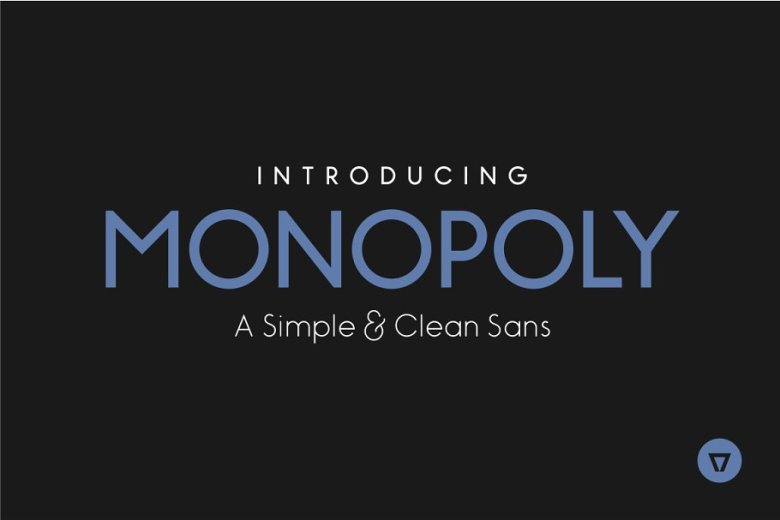
Monopoly Font
Monopoly Font is perfect for board game designs, retro gaming graphics, vintage-inspired branding, nostalgic poster art, property investment marketing, real estate logos, classic entertainment projects, family game night invitations, educational materials, and playful designs that evoke the timeless charm of classic American board games and family entertainment.
This font is exciting because it captures the iconic styling and nostalgic appeal of the world's most famous property trading board game, instantly triggering warm memories and emotional connections with audiences across generations. The distinctive letterforms combine classic elegance with playful personality, making it ideal for projects that want to evoke trust, tradition, and family-friendly fun.
The Monopoly Font family typically includes uppercase and lowercase characters, numerals, punctuation marks, currency symbols, and special glyphs that provide versatility for creating game-related designs and projects that celebrate strategic thinking and competitive entertainment.
Whether you're designing board game-inspired content, creating retro brand identities, or developing marketing materials for real estate and investment businesses that value trust and tradition, Monopoly Font Free Download provides instantly recognizable typographic character. Its classic styling and nostalgic appeal make every project feel more established and trustworthy, ensuring your designs communicate reliability, strategic thinking, and timeless entertainment value that resonates with families and game enthusiasts worldwide.